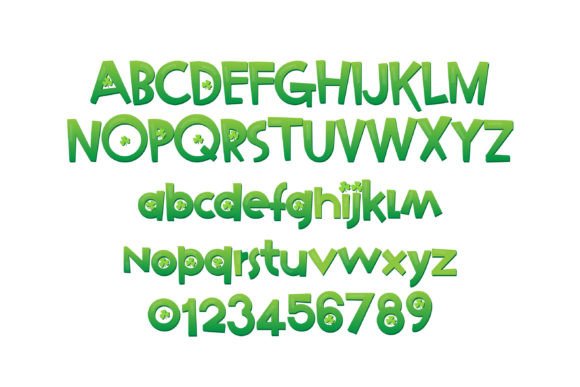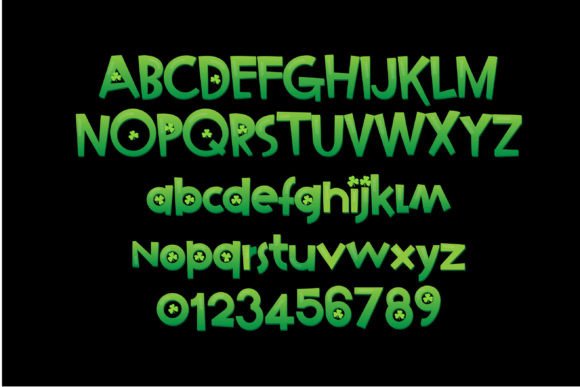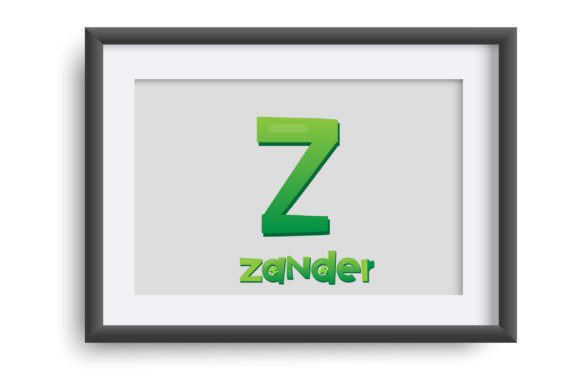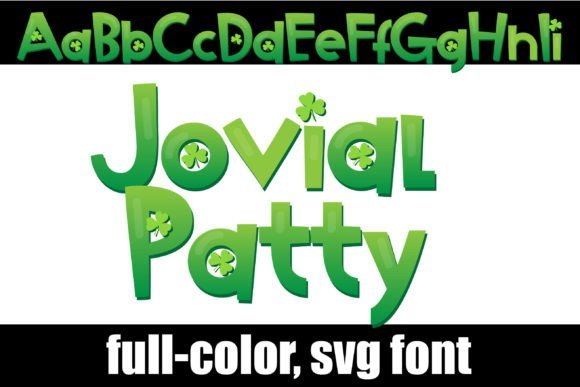
Introduction to Jovial Patty Font
Jovial Patty is a modern and unique font that perfectly captures the spirit of St.
Patrick’s Day Its playful shapes and attractive details make it stand out from the crowd, adding a fun and festive touch to any project.